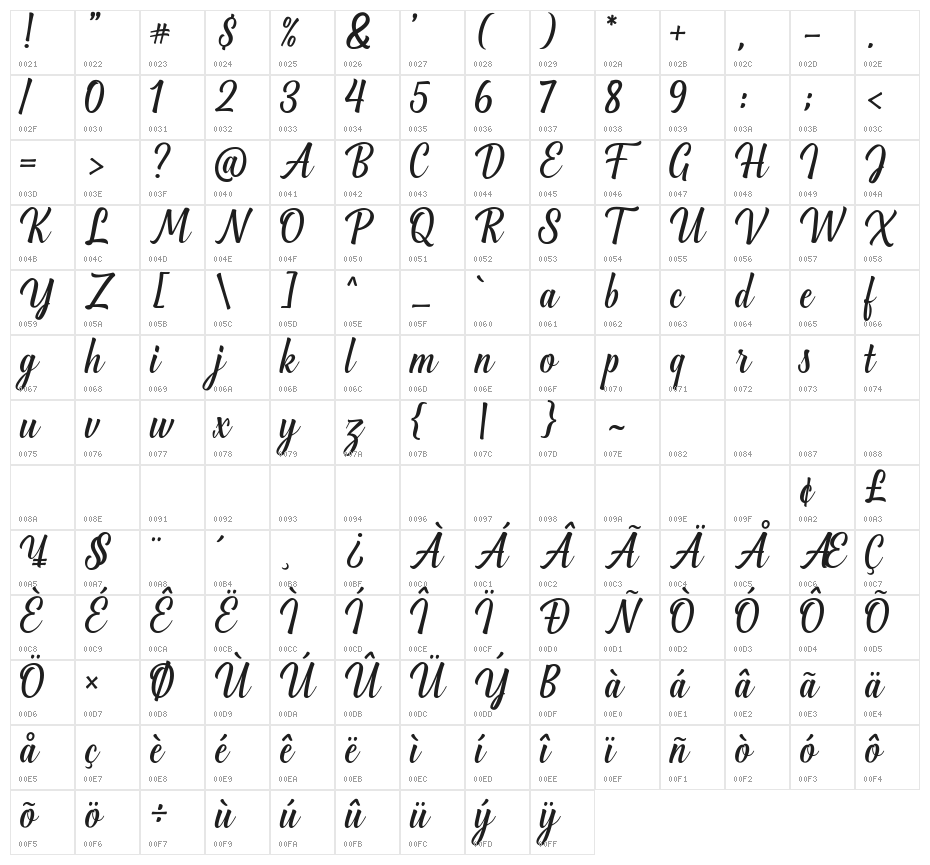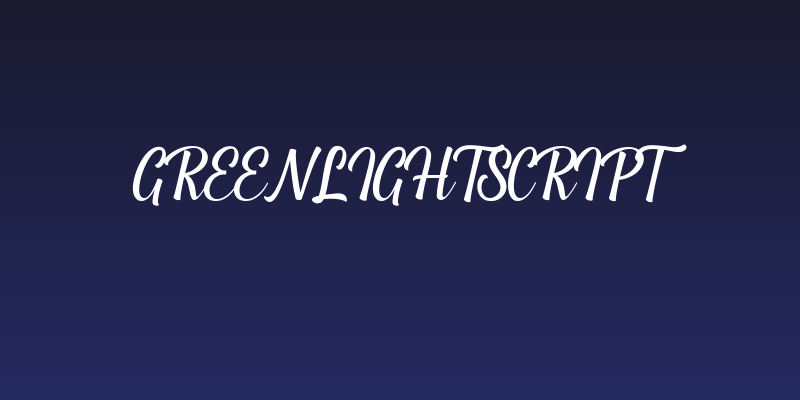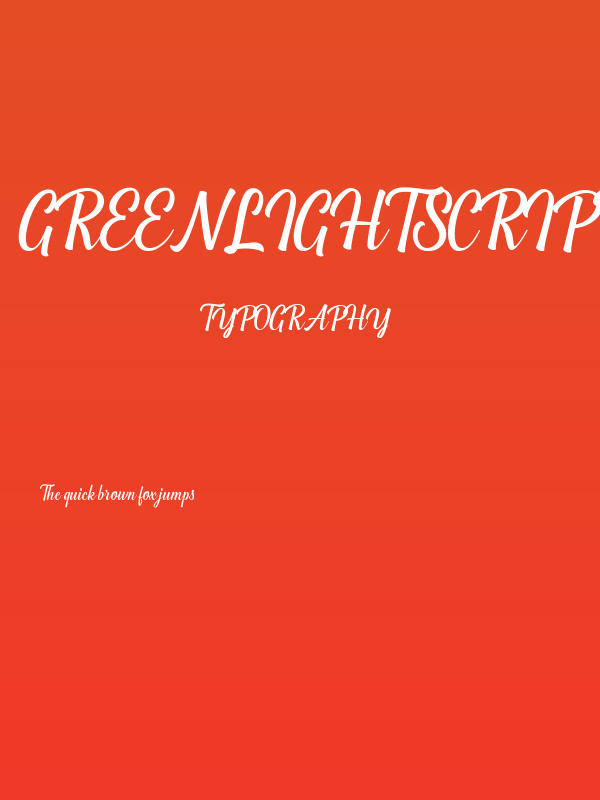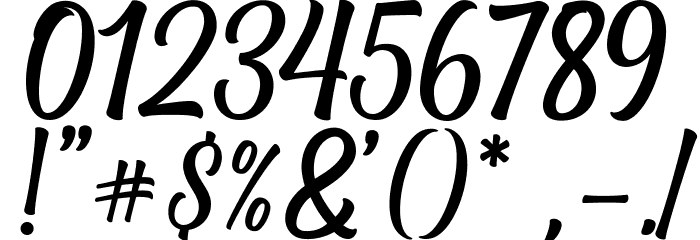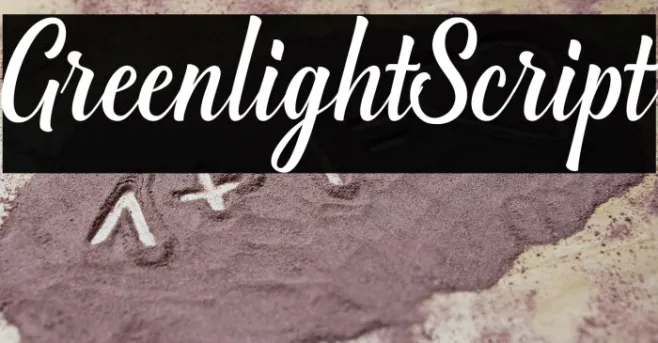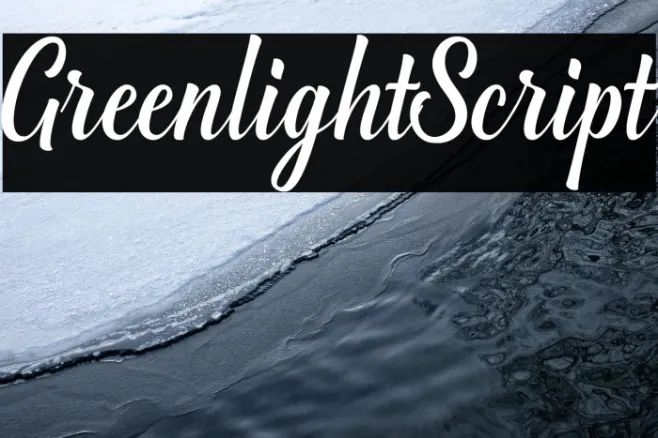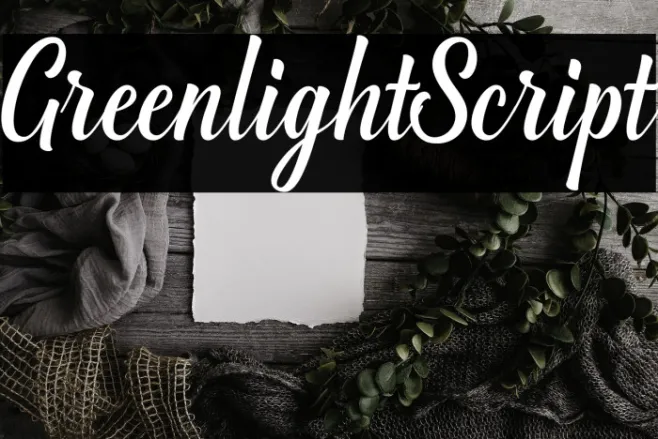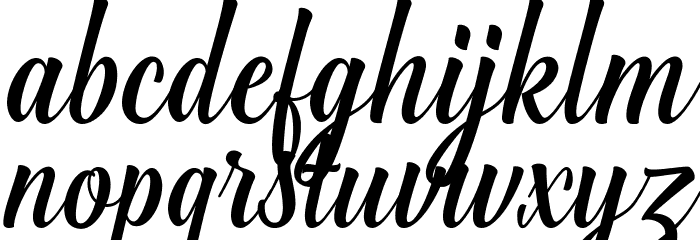
GreenlightScript Font
GreenlightScript Description
This font exudes a lively and dynamic character with its flowing, cursive style. The letters are elegantly connected, creating a sense of movement and fluidity. The strokes are smooth and consistent, with a medium contrast that adds to its readability while maintaining an artistic flair. The uppercase letters are bold and prominent, while the lowercase letters maintain a graceful continuity. Numbers and special characters are designed to match the script's overall aesthetic, ensuring a cohesive look across all text elements. This font is ideal for projects that require a personal touch or a sense of elegance and sophistication.
| Proposed Projects | Ideal for wedding invitations, greeting cards, logos, and branding materials that require a personal and elegant touch. |